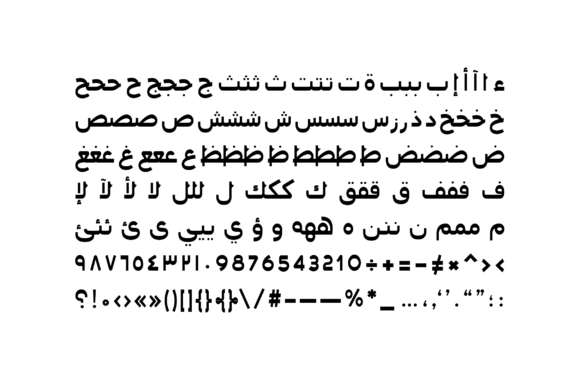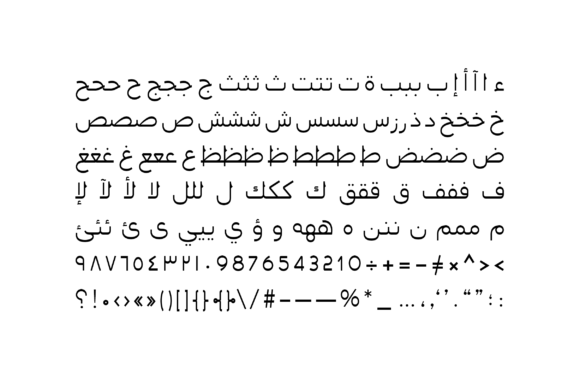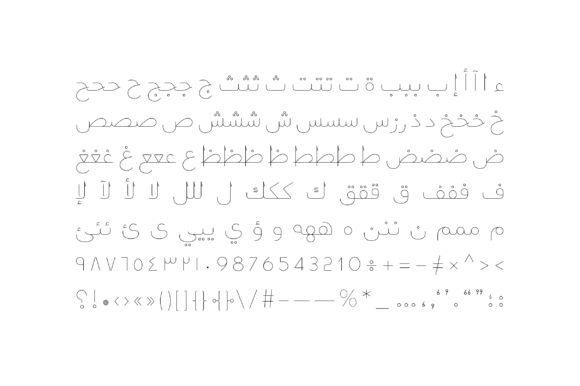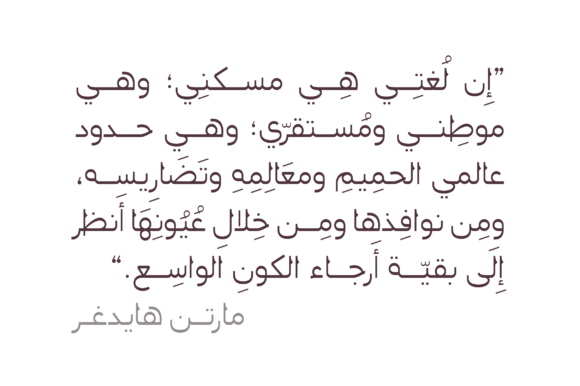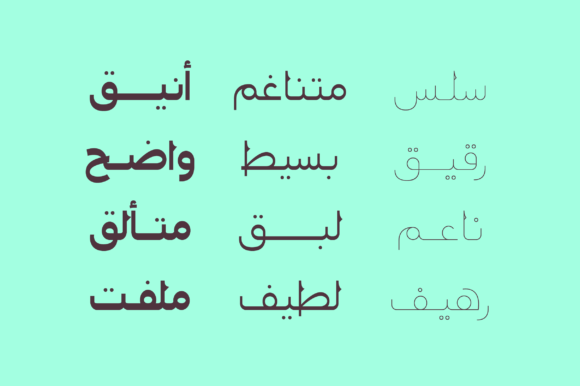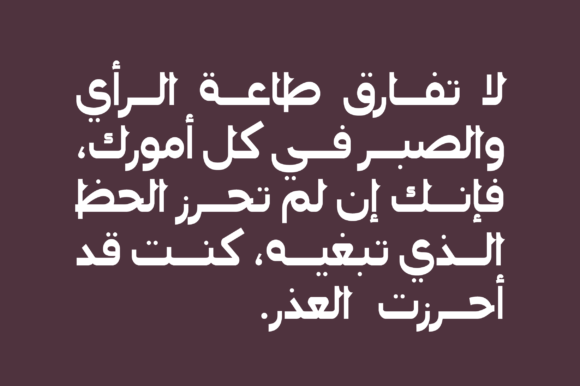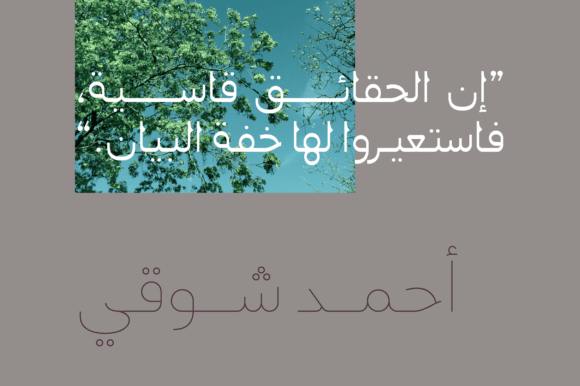
Montalaq Font
Montalaq (which is the Arabic word for ‘takeoff base’) is an Arabic display font based on an Arabic handwriting style redesigned into a geometric structure. The typeface is perfect for print, web, and mobile applications.